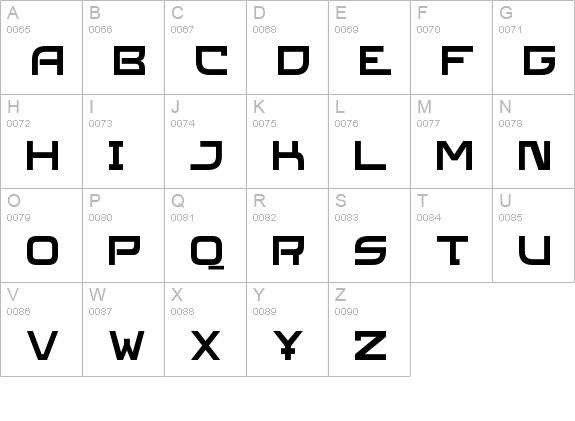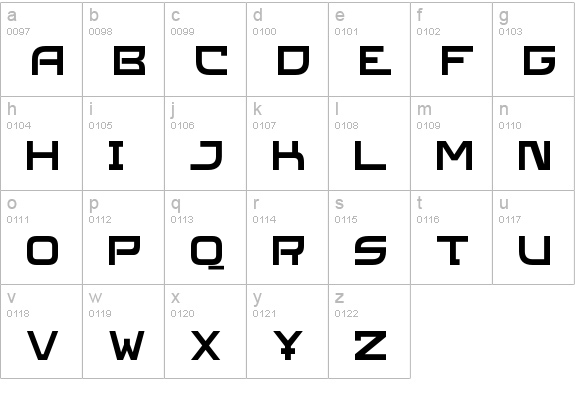
SL Panzerkardinal Font Details
SL Panzerkardinal is a striking and bold font that commands attention with its powerful presence. Designed to make a lasting impression, this font exudes strength and authority, making it perfect for headlines, logos, and other design projects that require a touch of confidence. The letters of SL Panzerkardinal are meticulously crafted, featuring sharp edges and clean lines that give it a modern and polished look. Its unique and distinctive design sets it apart from other fonts, making it a great choice for those who want to make a statement. One of the best things about SL Panzerkardinal is that it is available for free download at FontsMarket.com. This means that you can easily get your hands on this exceptional font without having to spend a dime. Whether you're a professional designer or someone who just wants to add a touch of sophistication to their personal projects, SL Panzerkardinal is the perfect choice. With its versatility and eye-catching design, SL Panzerkardinal is suitable for a wide range of applications. Use it to create attention-grabbing headlines, design striking logos, or add a touch of elegance to your social media posts. The possibilities are endless with this font. So why wait? Download SL Panzerkardinal for free at FontsMarket.com and unleash your creativity. With this font in your toolbox, you'll be able to create stunning designs that leave a lasting impression. Don't miss out on this opportunity to elevate your projects to the next level. Get SL Panzerkardinal today and experience the power and beauty of this remarkable font.